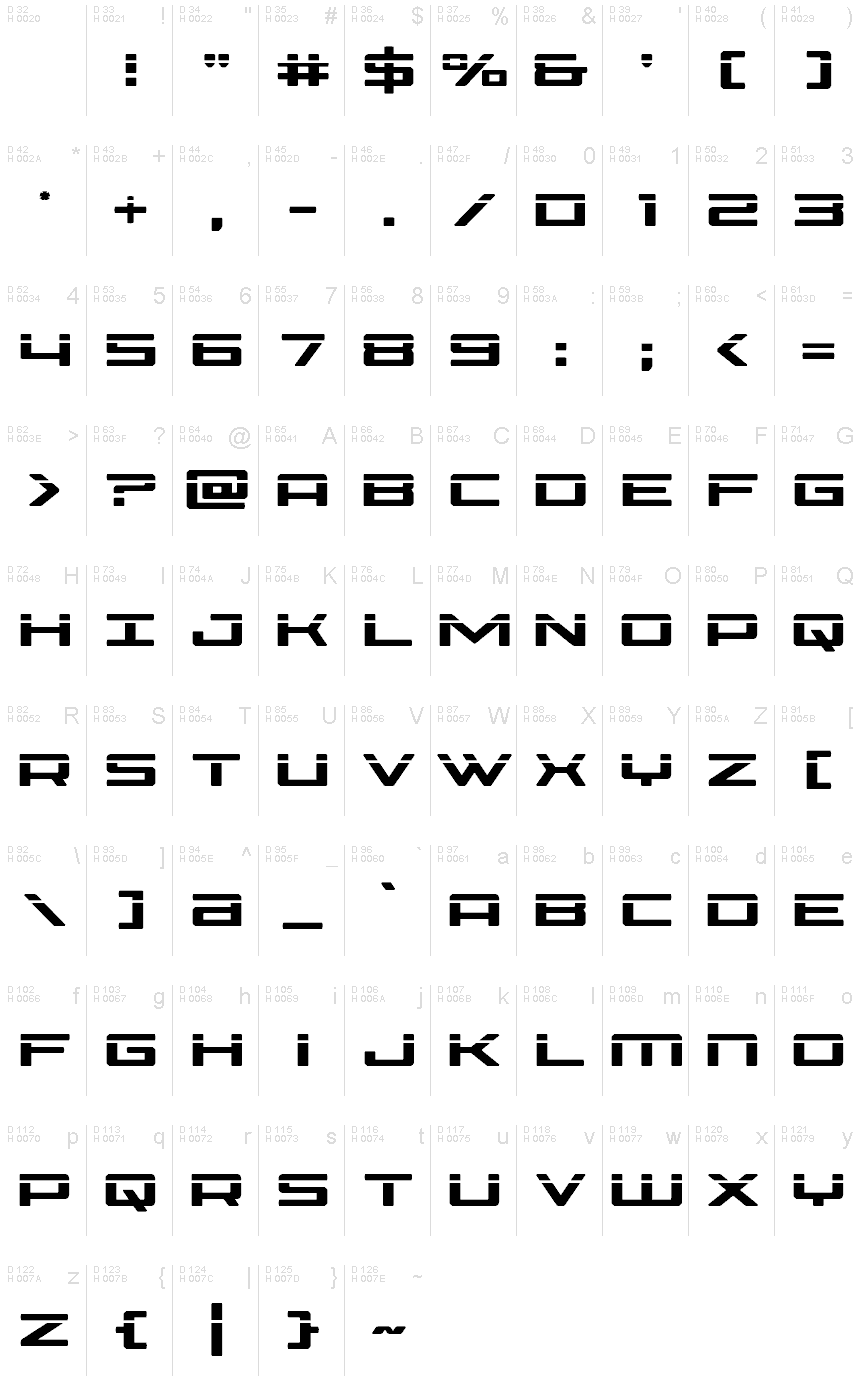
Phoenicia Laser is a bold, techno-inspired font that commands attention. Its sharp, angular letterforms and expanded width exude a distinct industrial aesthetic, lending a sense of power and modernity to any design.
The distinctive laser-cut appearance adds depth and texture, elevating this font beyond the realm of typical display typefaces. Phoenicia Laser's strong personality makes it an excellent choice for headlines, logos, and branded materials where a striking, contemporary visual impact is desired.
Its versatility allows it to seamlessly transition from digital to print applications, ensuring a cohesive, high-impact presentation across various media.